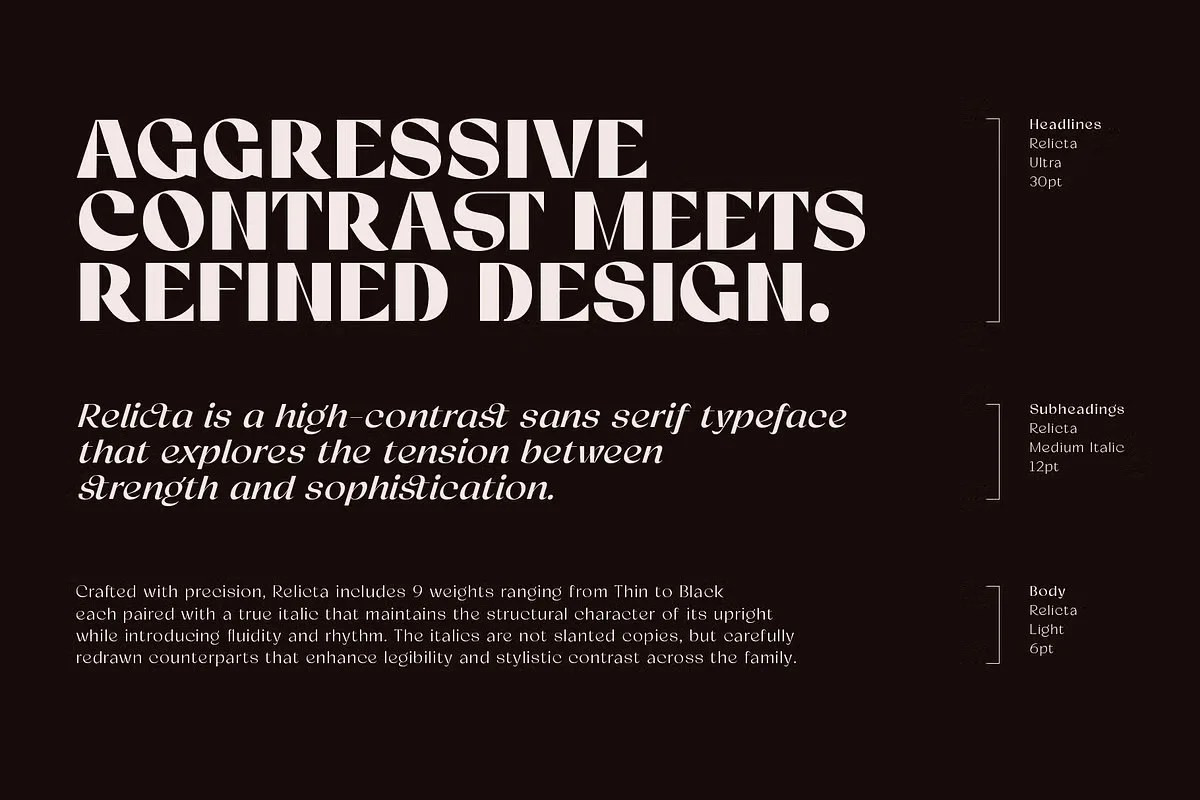
Relicta by Jehoo Creative is a modern sans serif font designed with clean lines, minimal curves, and a professional appeal. Its sleek and contemporary style makes it perfect for branding, corporate identity, digital content, presentations, and modern editorial layouts. Relicta combines clarity with sophistication, ensuring strong readability and an upscale look.
• Contemporary sans serif typeface
• Excellent for logos & branding
• Ideal for corporate identity & presentations
• Great for editorial & magazine design
• Clean, minimal, and versatile
• Maintains clarity at any size
• Professional and modern look
Relicta